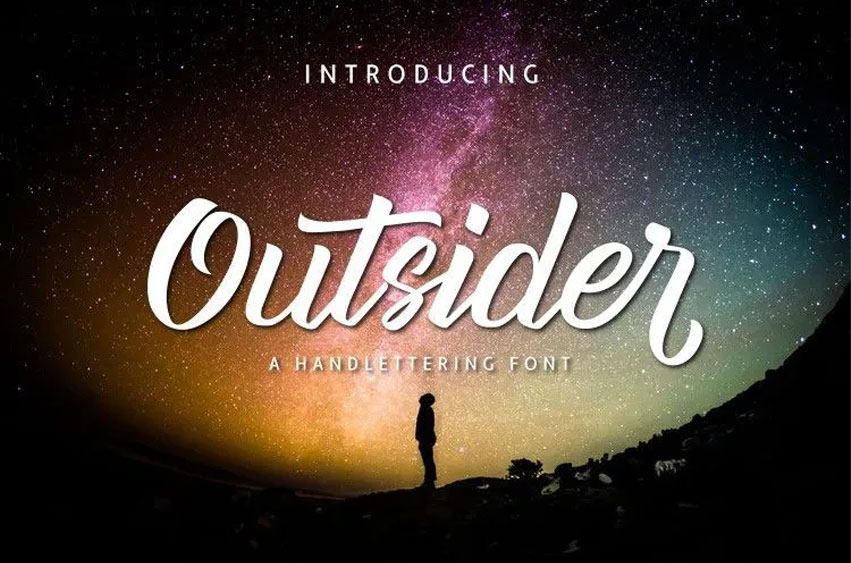
Outsider Font
Outsider Font is a handwritten font that is inspired by the original handwritten script, which helps to make the types look interesting and beautiful works.
Outsider is well suited for branding projects, home-ware designs, product packaging, headers for magazines or just as a nice text on top of any picture.